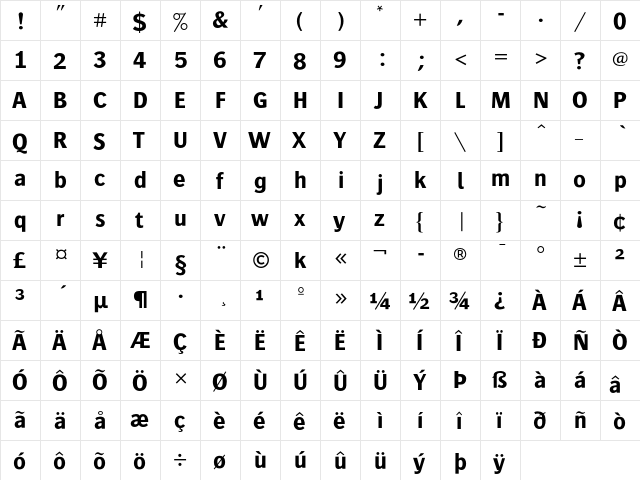
Bosis Regular
Design Context for Bosis Typeface
Bosis is a composed and adaptable typeface that performs quietly and consistently across a wide range of design contexts.
Pro Tip: Use Bosis in both headline and body roles to test its range before committing to a single application.